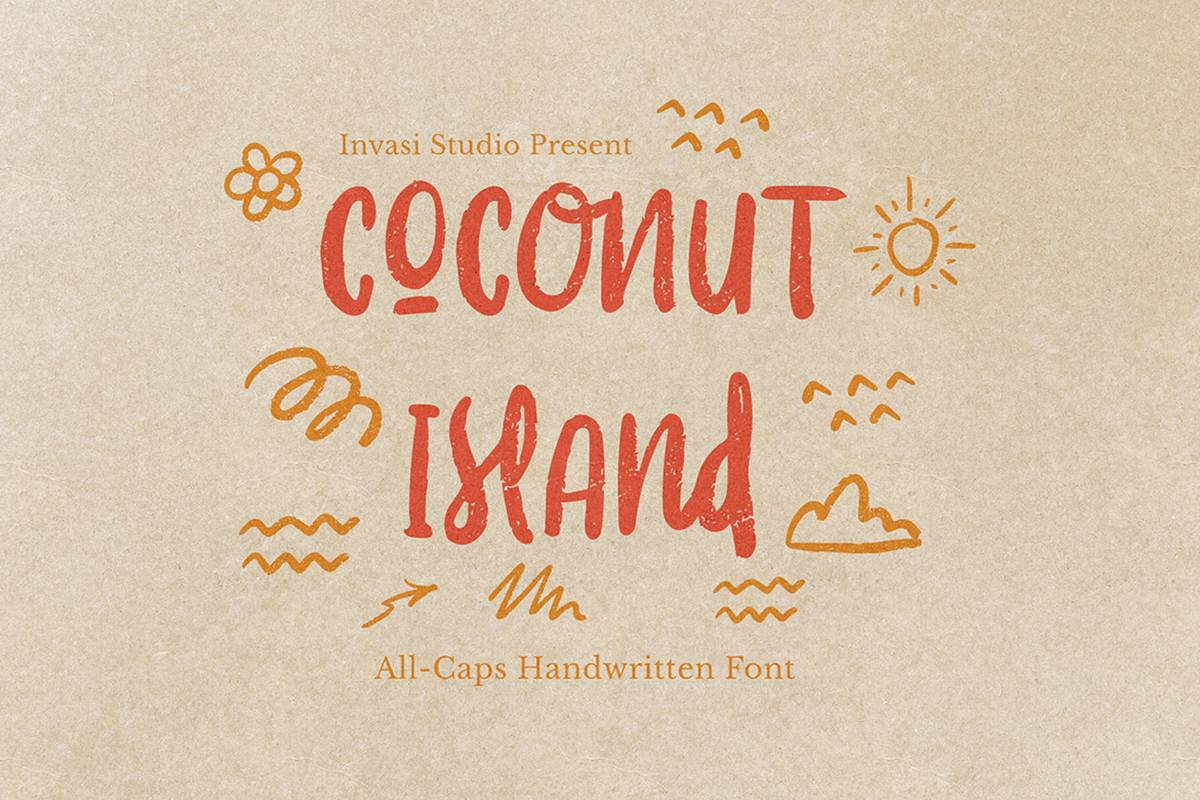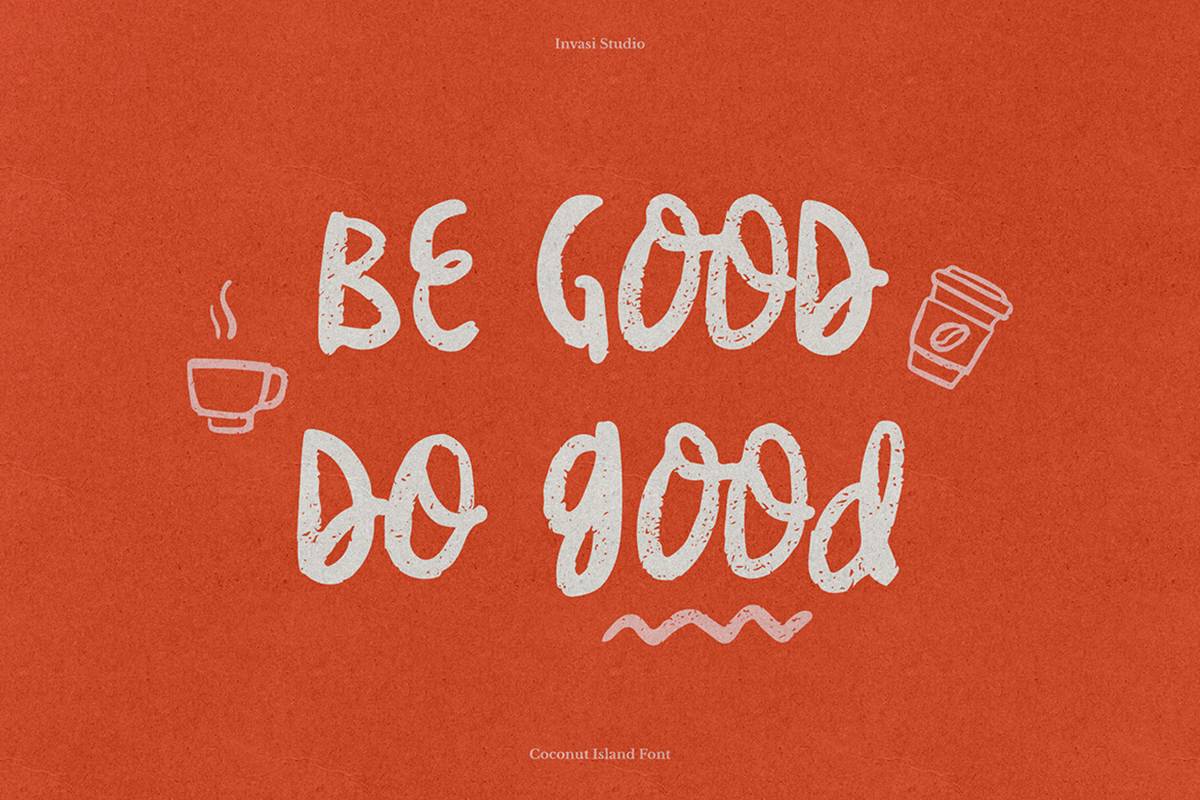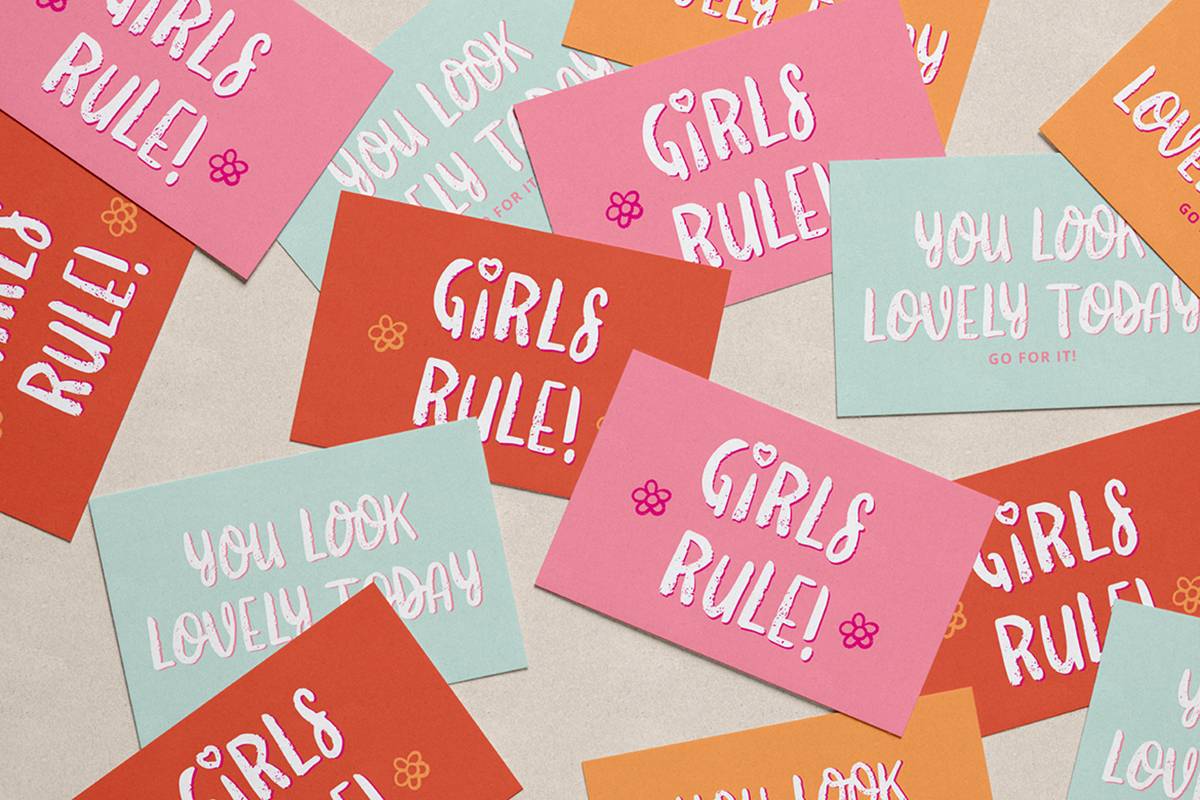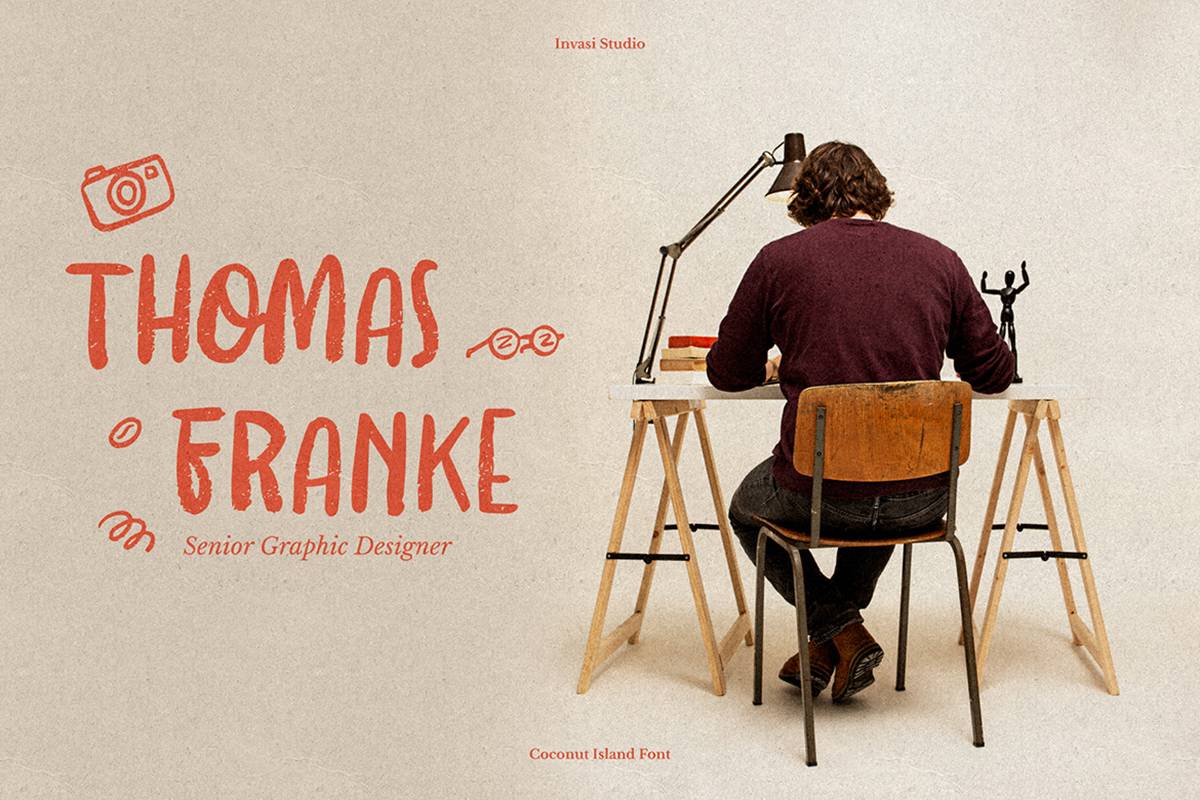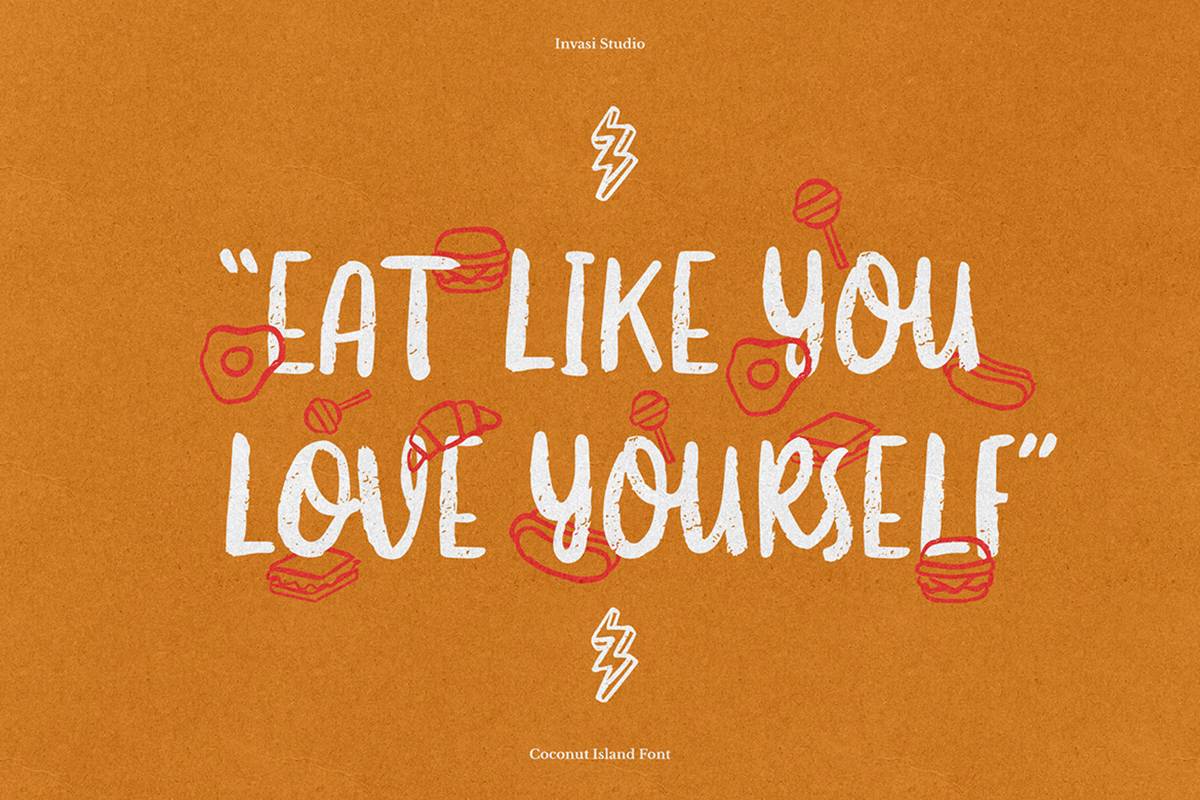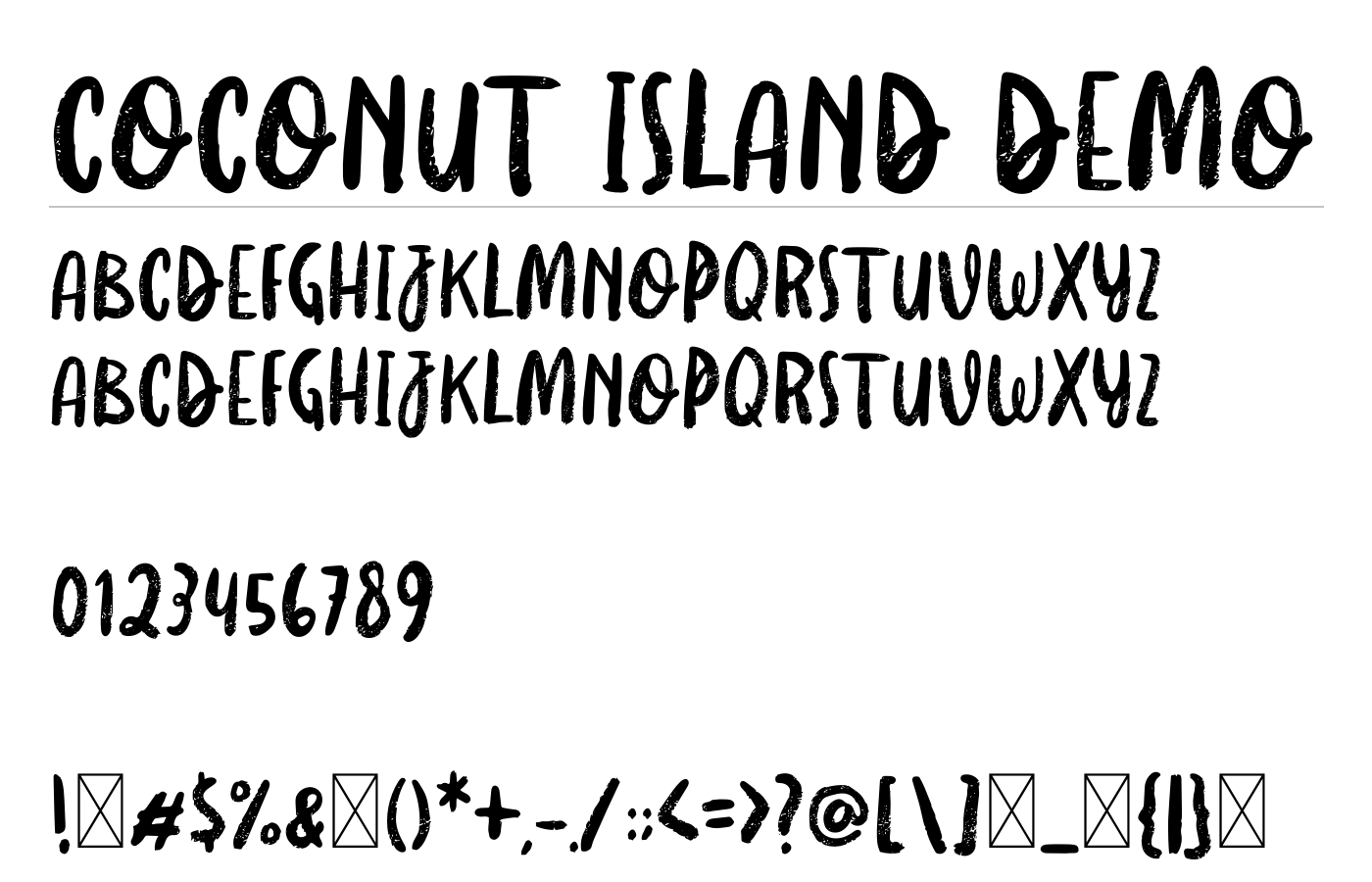
Coconut Island is a playful, hand-drawn sans serif font with a casual and textured brush style that evokes a lively, relaxed vibe. Its uneven strokes and slightly rough edges give it an organic, informal feel, making it perfect for creative, fun branding, posters, or any design looking to convey a friendly and approachable personality. This font works well in headlines and display use where a unique, energetic look is desired.
Coconut Island Font
About Coconut Island Font
| Font family | Coconut Island Font |
| Designer | Gha Arizal |